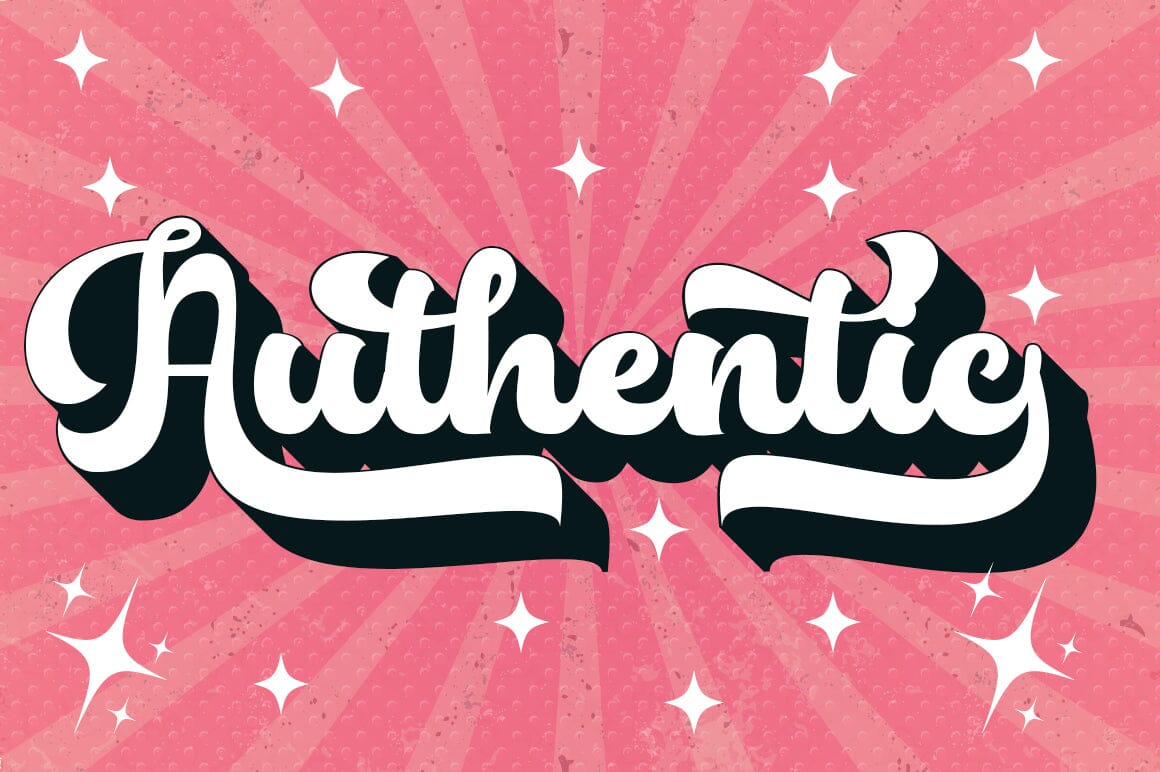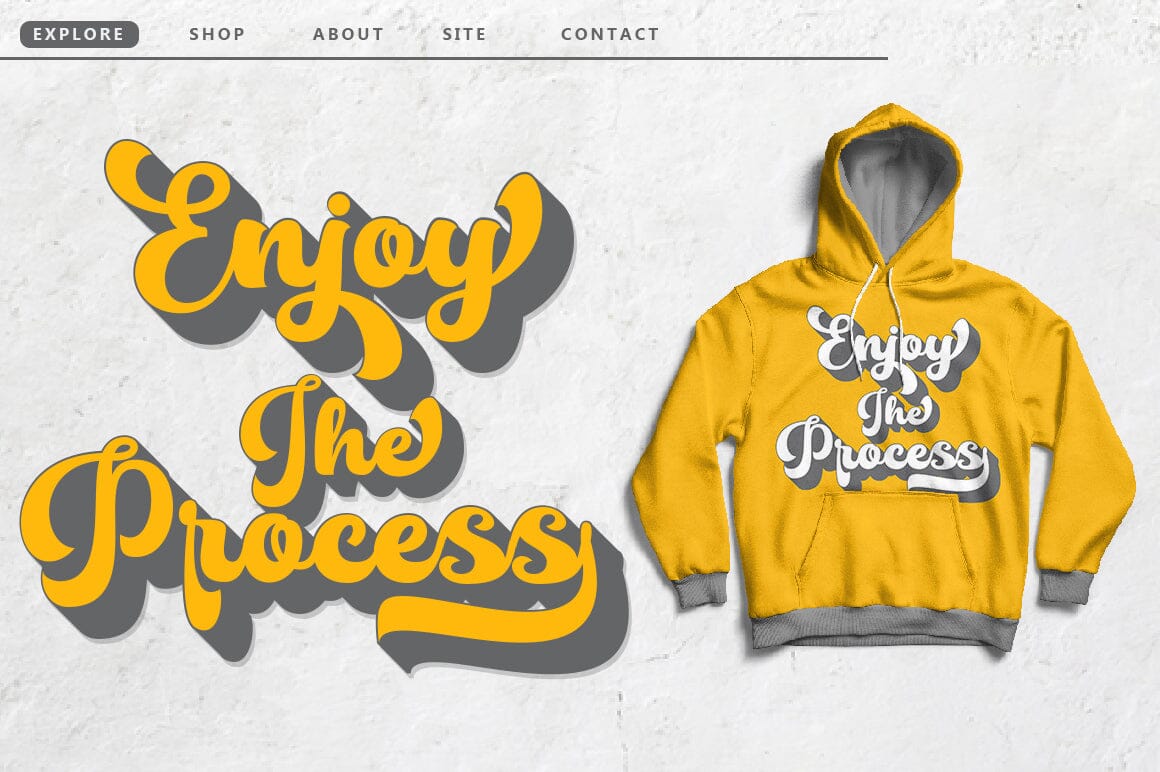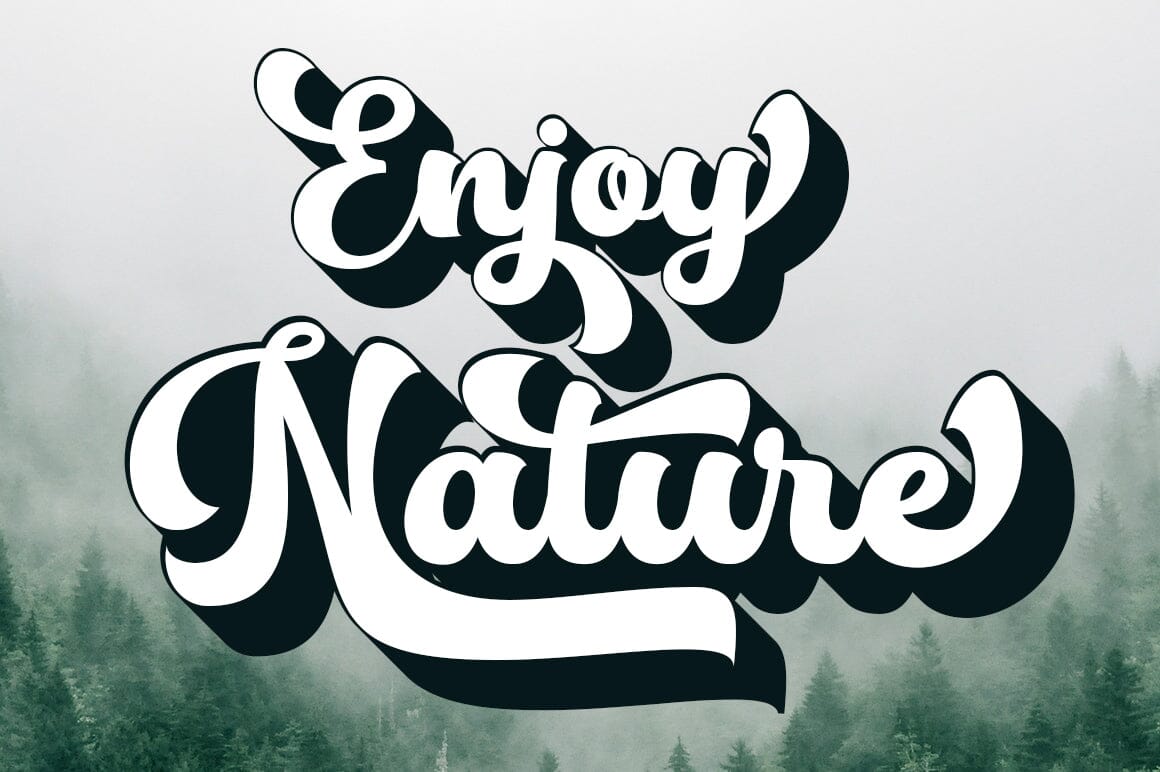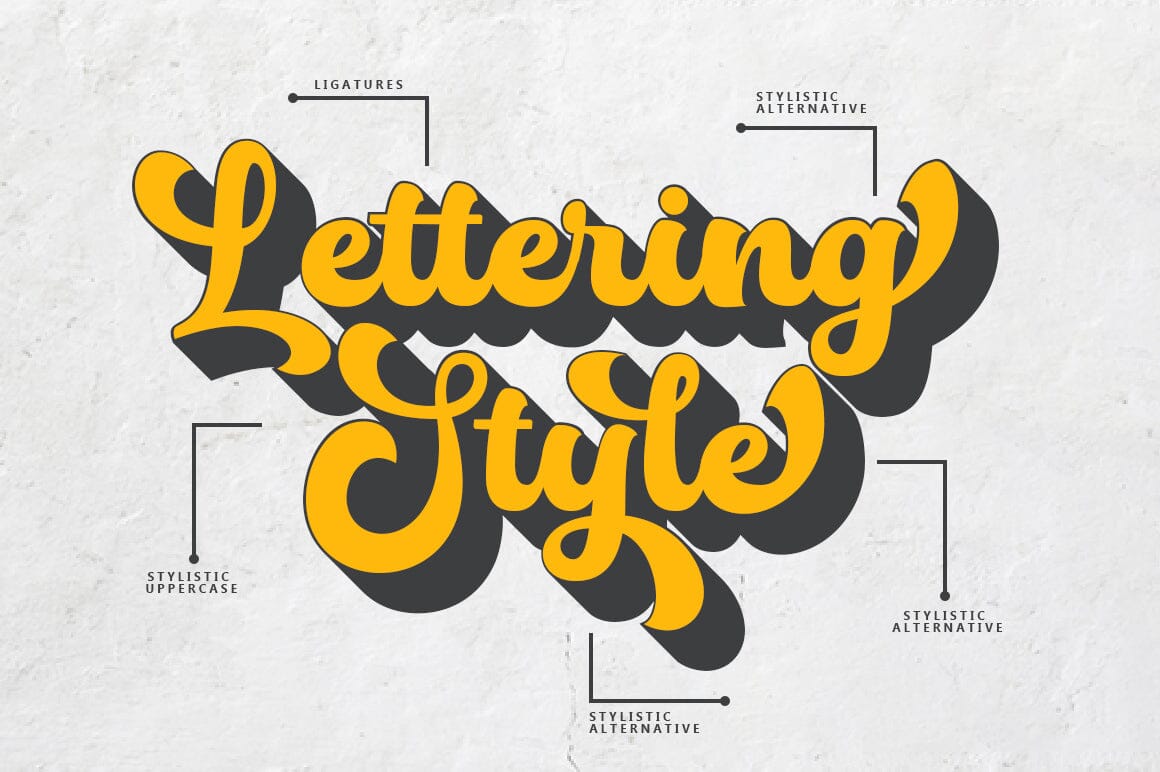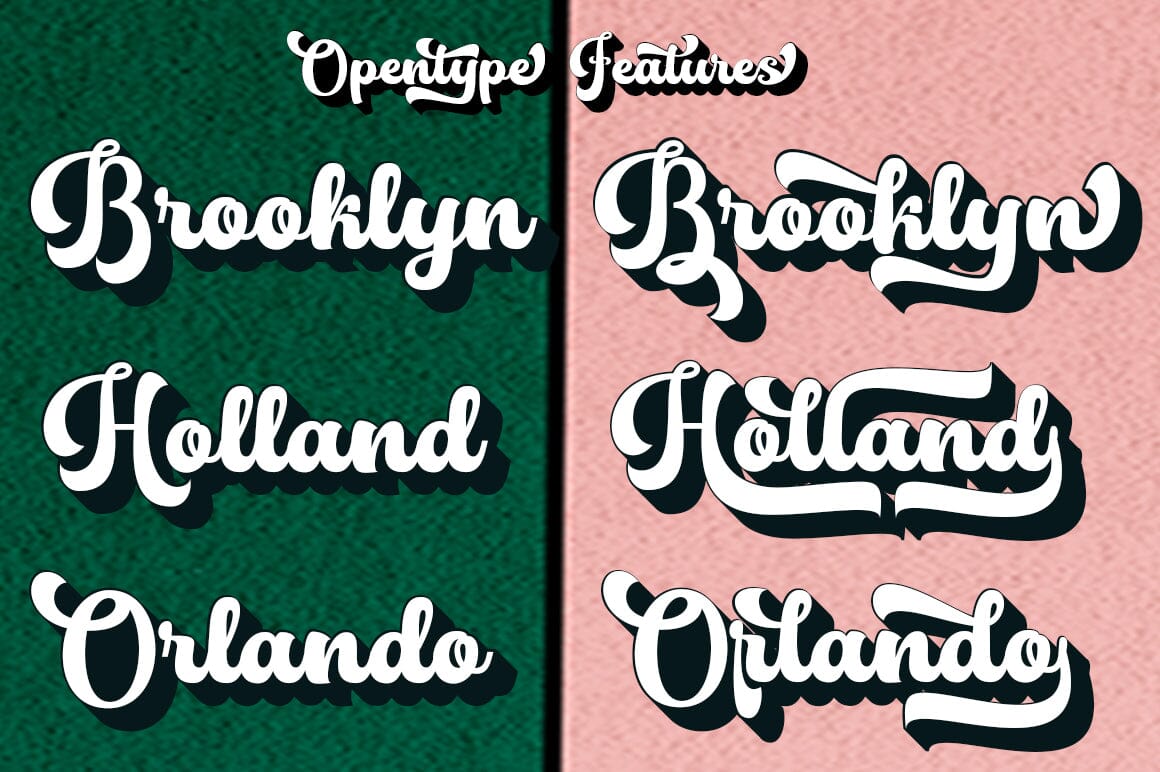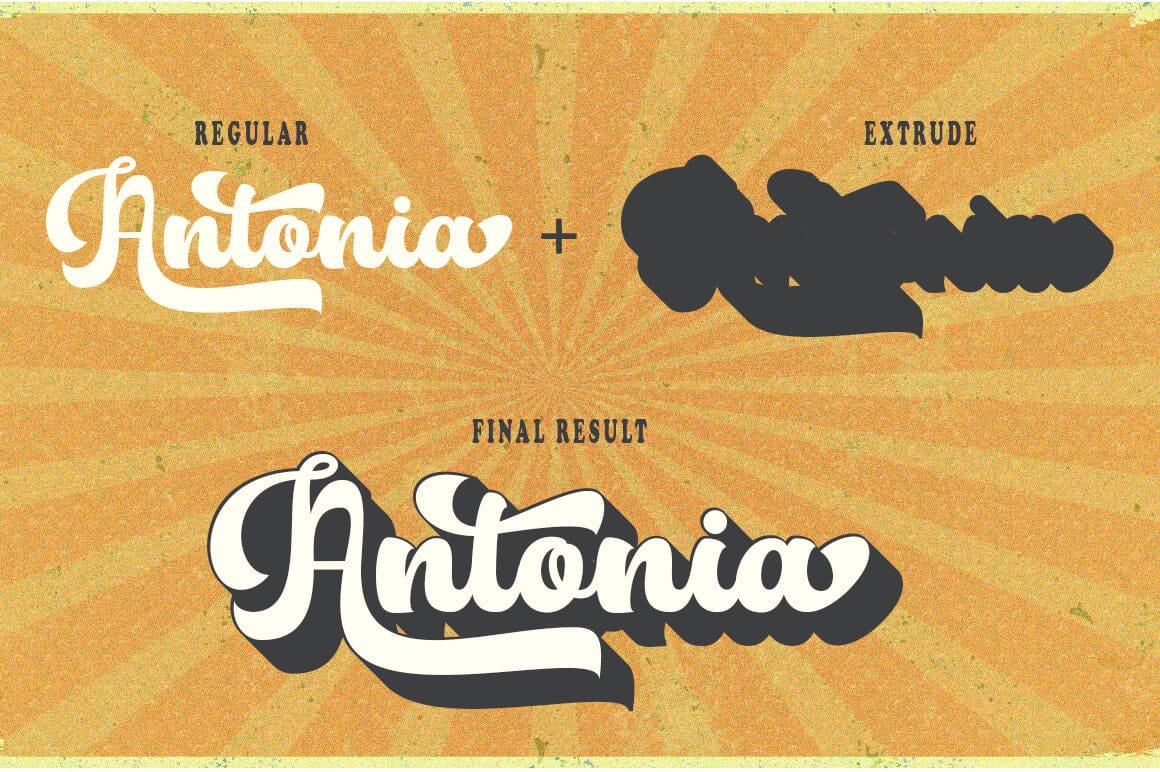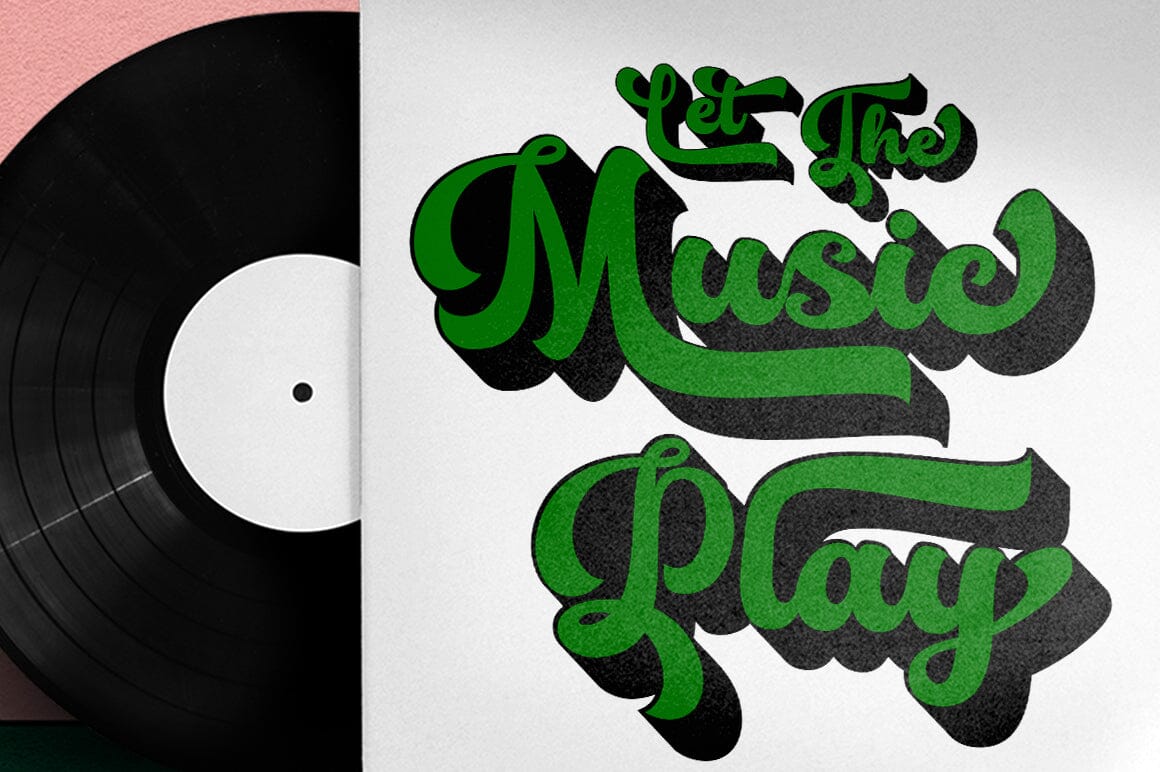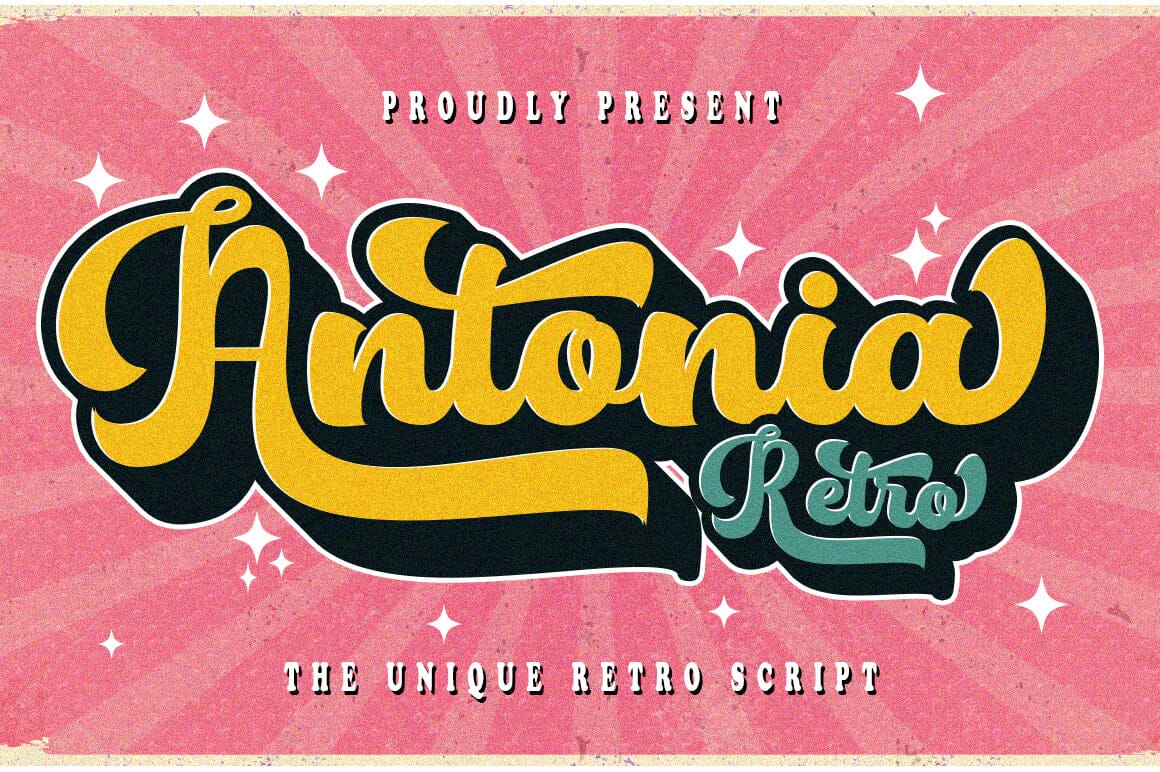
Antonia Retro
About Antonia Retro
Introducing, Antonia Retro. Bold retro script that takes you back to the ’60s feel. This typeface has an extruded version so you can easily create retro effect fonts. This font is very suitable to be applied especially to logos, and various other formal forms such as invitations, labels, logos, magazines, books, greeting/wedding cards, packaging, fashion, make up, stationery, novels, labels or any type. advertising purposes. Feature : upper & lower case numbers and punctuation multilingual fastener alternative sweep PUA encoded We strongly recommend using a program that supports OpenType features and the Glyphs pane like many Adobe and Corel Draw applications, so that you can view and access all variations of Glyphs